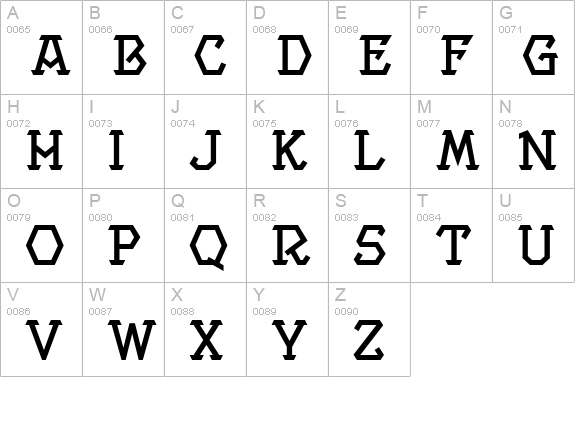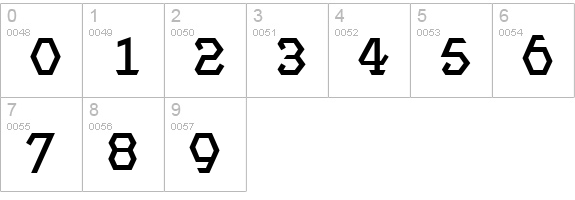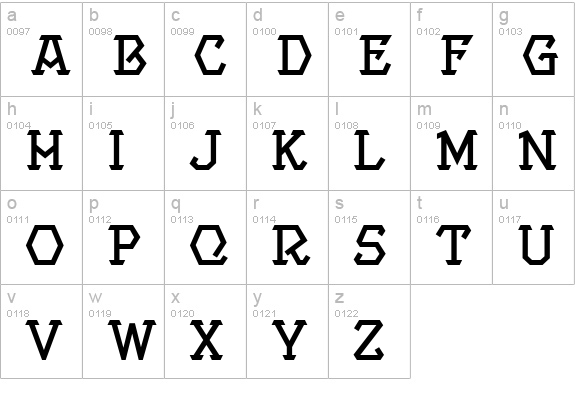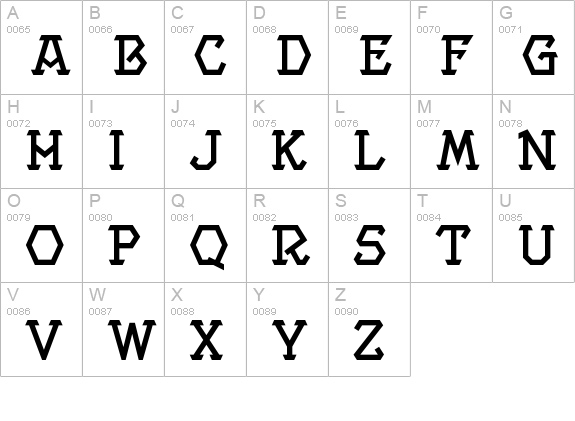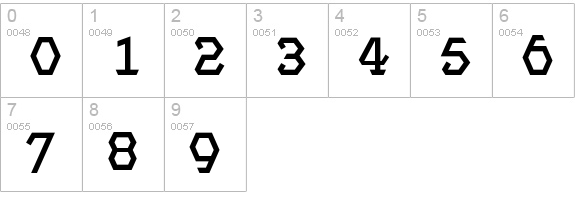
ProjectMedium Font Details
ProjectMedium is a versatile and modern font that effortlessly blends elegance with functionality. With its clean lines and balanced proportions, this font is perfect for a wide range of design projects, from branding to editorial design. The medium weight of the font provides a strong presence while remaining easily readable across different mediums. Best of all, ProjectMedium is available for free download at FontsMarket.com. This means that you can easily access and use this font in your projects without any cost. Whether you're a designer looking to add a touch of sophistication to your work or a business owner in need of a professional font for your branding materials, ProjectMedium is the perfect choice. Download it today and elevate your designs with this stylish and contemporary font.